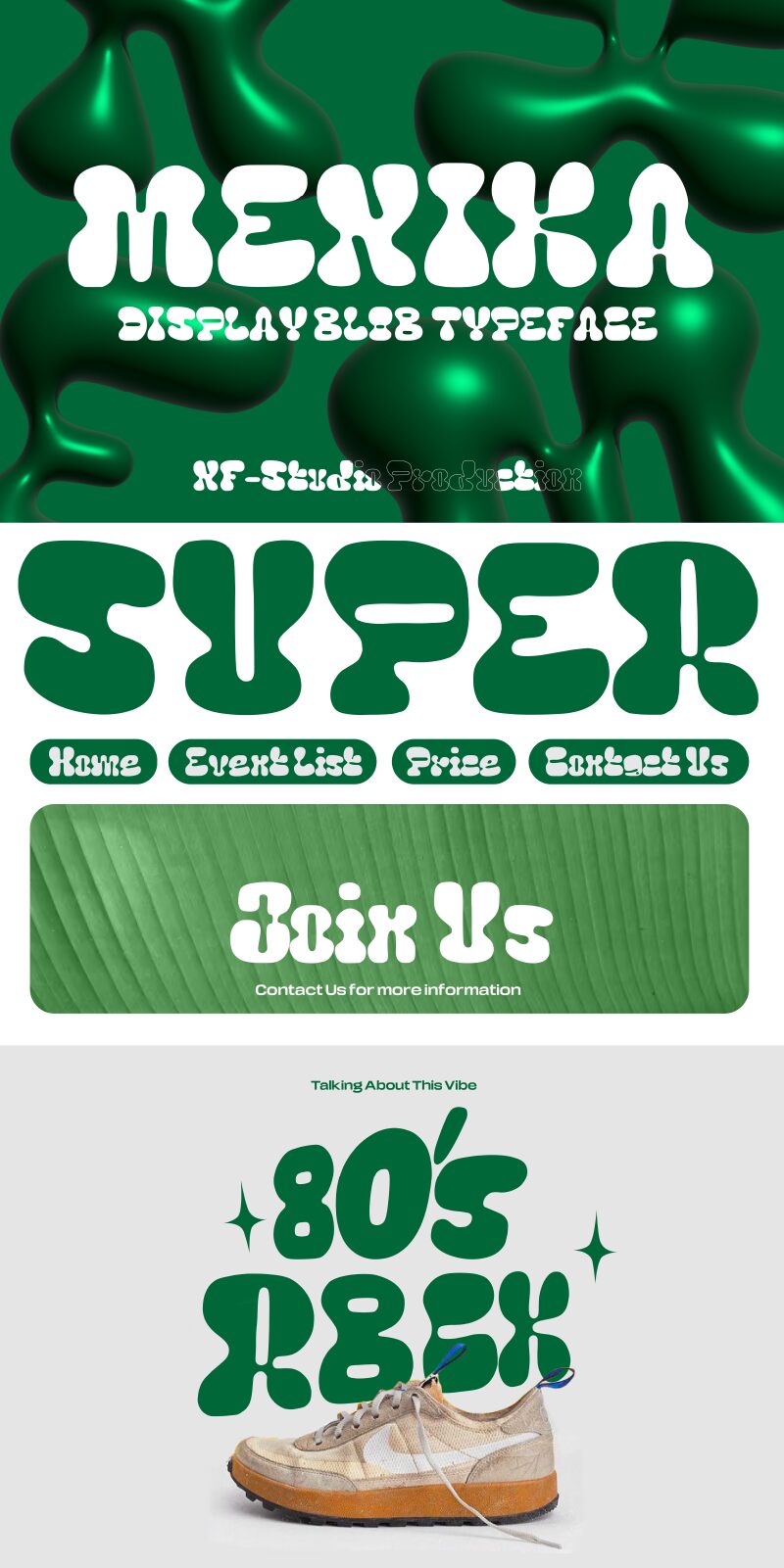
Menika font by Jetsmax Studio is a free groovy font, a true celebration of retro style and playful energy. Its bold, bubbly letters whimily dance across the page, evoking the nostalgia of a bygone era, yet retaining a modern edge. Intended to add lots of personality and character, this font achieves that through its energetic appearance. Menika embodies a lively spirit and timeless visual appeal in all of its decorative letters.
Use Menika in branding projects, music album covers, internet banners, posters, packaging, and book covers, among other things. It also fits clothing items, accessories, stationery designs, phone covers, and web design use.